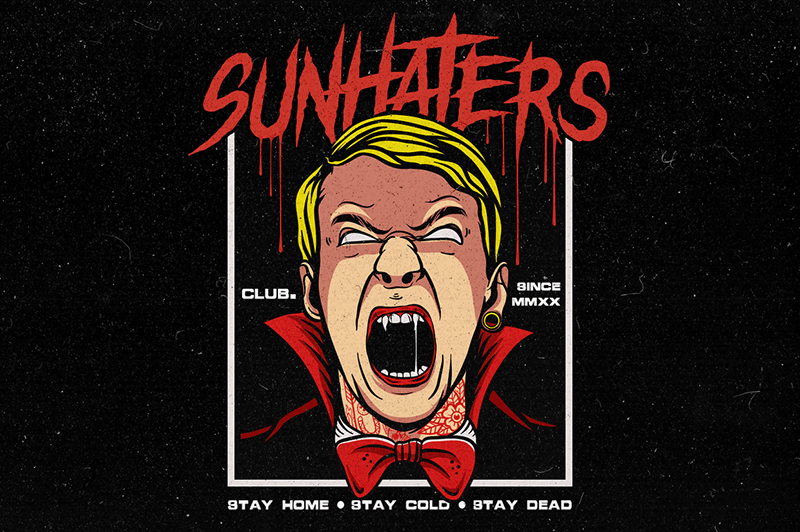
Preview and download Earthen Parasite Font. Created by The Branded Quotes in Fancy Horror styles with Demo license.
Purchase the full font here: https://sellfy.com/p/8sdtkz/ Which includes the license for Commercial Use. About this font: Earthen Parasite is created to stir up the waters. A font best described as "restless nightmare" due to its looks. Incorporate a little havoc to your designs. Give in to the Earthen Parasite! Features: - Slant Version - Multilingual Support - OTF - Alternates + Ligatures Enjoy! |